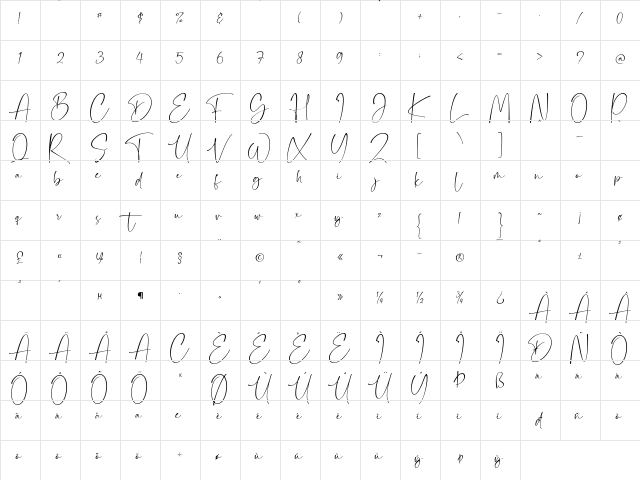
Dollamin Regular
Design Context for Dollamin Typeface
Dollamin is a composed and adaptable typeface that performs quietly and consistently across a wide range of design contexts.